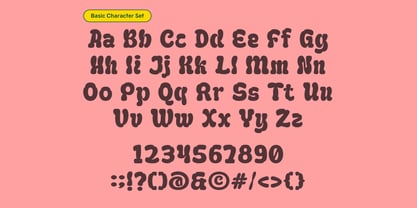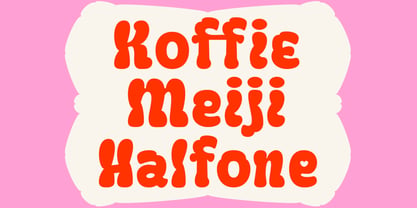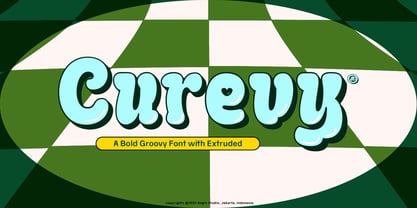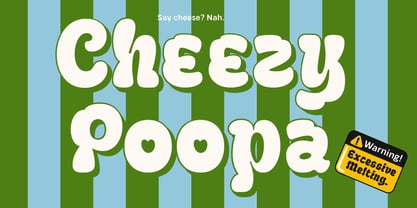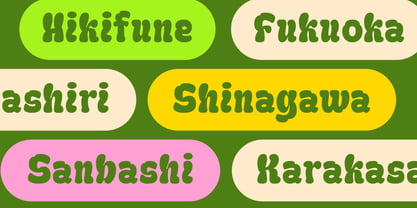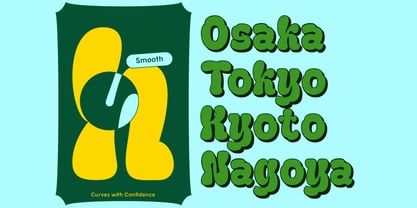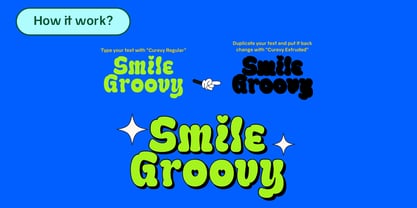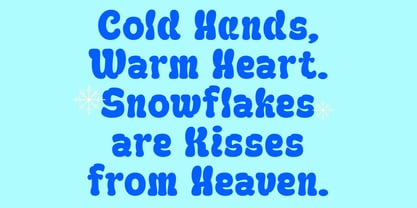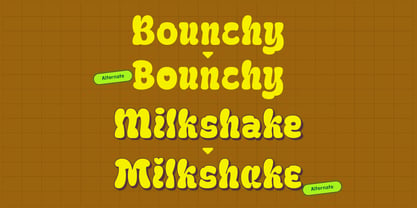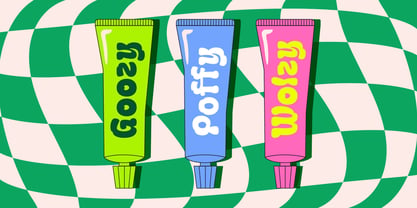
Curevy
by Angin Studio
The Curevy Font Family was designed by Ahmad Aswin, David Novrian and published by Angin Studio. Curevy contains 2 styles and family package options. More about this family
Curevy is a bold groovy display font that brings a playful retro vibe with a modern twist. Designed with chunky curves and smooth rounded shapes, this font instantly creates a fun and eye-catching look for any design project. What makes Curevy stand out is its extruded shadow style, giving the letters a dimensional feel that pops beautifully on colorful backgrounds. The soft curves combined with bold weight make it perfect for designs that want to feel energetic, nostalgic, and friendly at the same time. Inspired by 70s groovy typography, Curevy blends retro personality with a fresh modern aesthetic. The bubbly letterforms and smooth flow make every word feel lively and expressive.
Designers: Ahmad Aswin, David Novrian
Foundry: Angin Studio